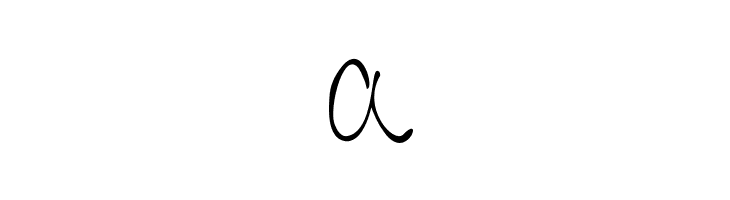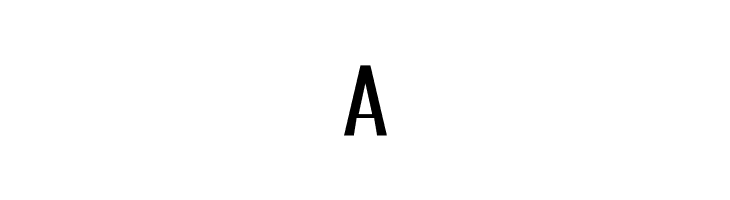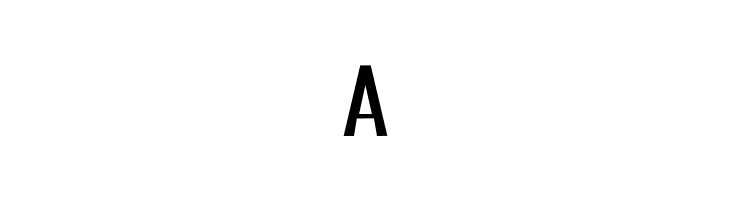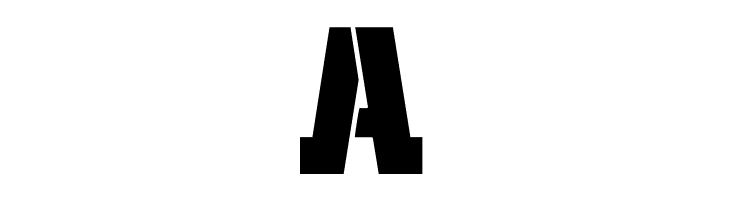
Bold, oblique font with a dynamic and modern style.
A bold, condensed font with high contrast and tight spacing, perfect for impactful designs.
A bold, oblique font with modern, dynamic letterforms.
A bold, modern font with a sleek, slightly condensed style.
A modern, condensed sans-serif typeface with a sleek and professional look.
A modern, oblique font with elongated, condensed characters and a dynamic style.
A bold, impactful font with thick, uniform strokes and high contrast.
A bold, extended font with a modern and impactful design.
A bold, extended, and oblique font with a modern and dynamic style.
A bold, oblique font with a modern and dynamic style.
A modern, tall, and narrow sans-serif font with clean lines and balanced spacing.
A modern, extended sans-serif font with a clean, minimalist design.
A modern, oblique, and extended font with a light and elegant style.
A sleek, oblique font with a modern and elegant design.
A modern oblique font with slanted, elongated letterforms and a dynamic style.
A bold, condensed font with a modern and assertive style.
A bold, extended font with a modern and clean design.
A bold, extended, and oblique font with a modern and dynamic style.
A bold, oblique font with a modern and dynamic style.
A playful, handwritten font with smooth, rounded edges and a casual style.
A playful, informal handwritten font with rounded, consistent strokes.
A playful, handwritten font with a whimsical and casual style.
A whimsical and playful font with curvy lines and decorative swirls.
A playful, casual handwritten font with fluid and natural strokes.
A classic serif font with elegant strokes and refined serifs.
An elegant italic serif font with flowing lines and balanced strokes.
A classic serif font with elegant strokes and balanced proportions.
An elegant italic serif font with moderate contrast and subtle serifs.
A playful, handwritten font with smooth, flowing lines and a casual style.
A bold, geometric stencil font with strong industrial appeal.
A bold, angular font with a geometric and dynamic style.
An elegant, flowing script font with intricate loops and swashes.